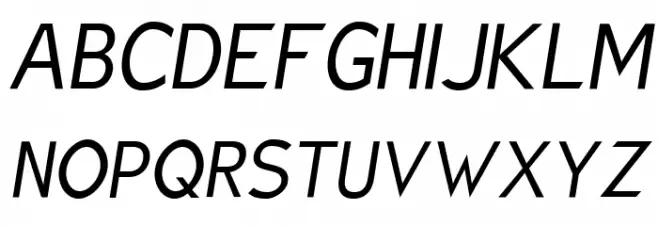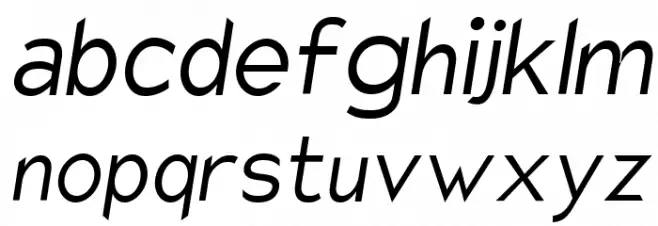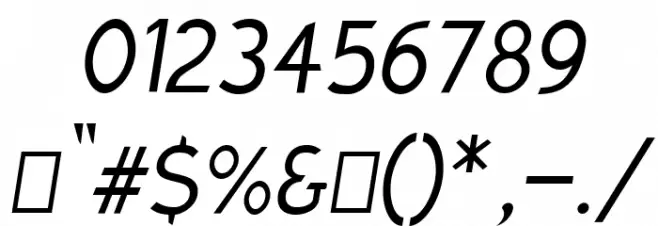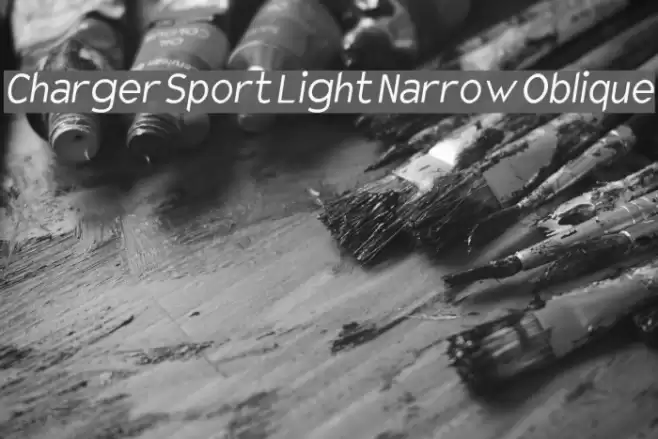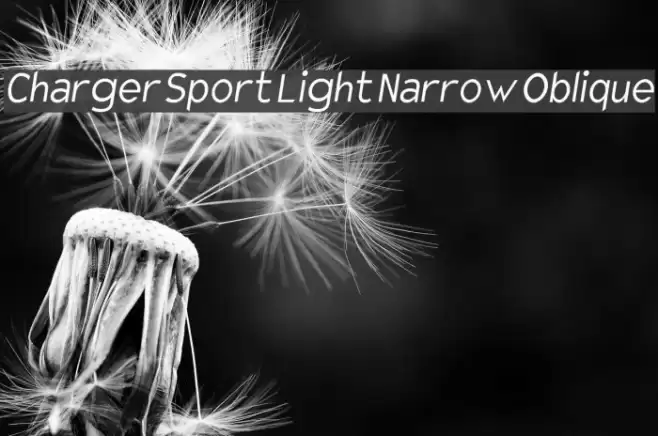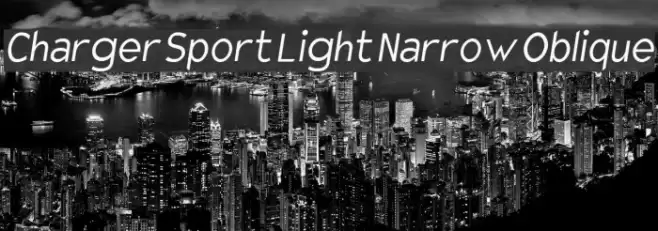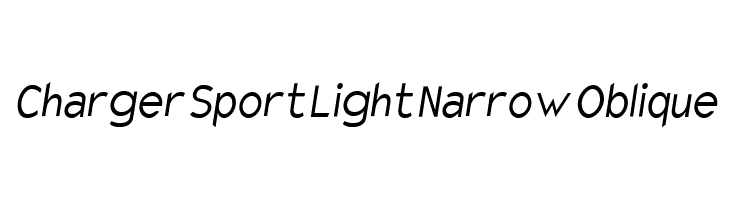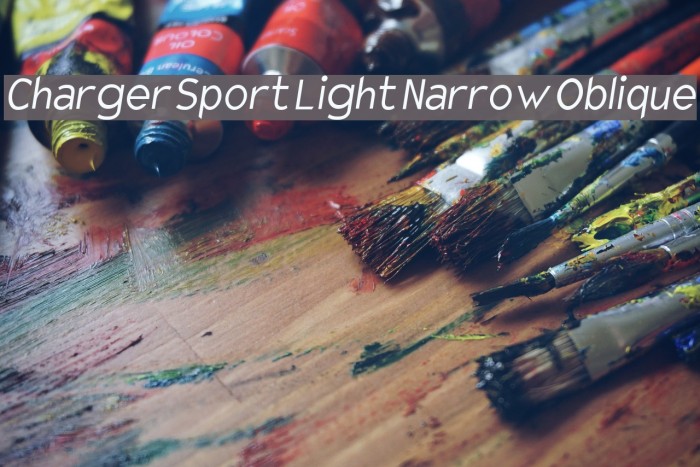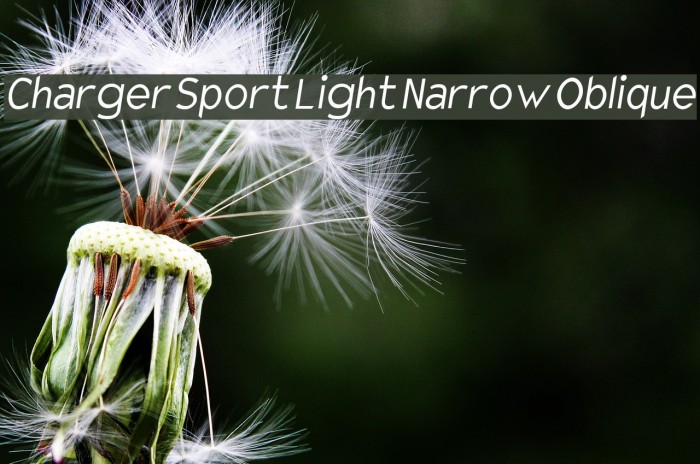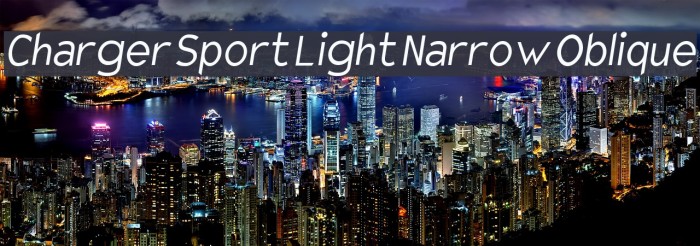
Charger Sport Light Narrow Oblique
This font exhibits a sleek, modern design with a light weight and narrow width, giving it a streamlined and contemporary appearance. The oblique style adds a dynamic and forward-leaning character, enhancing its sporty and energetic feel. The characters are well-proportioned with a consistent stroke width, contributing to its clean and minimalist aesthetic. The uppercase and lowercase letters maintain a harmonious balance, while the numerals and special characters are crafted with precision, ensuring readability and versatility across various applications.
A sleek, modern, and oblique font with a light weight and narrow width.
- Proposed Projects: Ideal for sports branding, modern advertising, dynamic web design, and sleek editorial layouts.
- Weight: Light
- Width: Condensed
- Use Case: Headlines, Logos, Branding